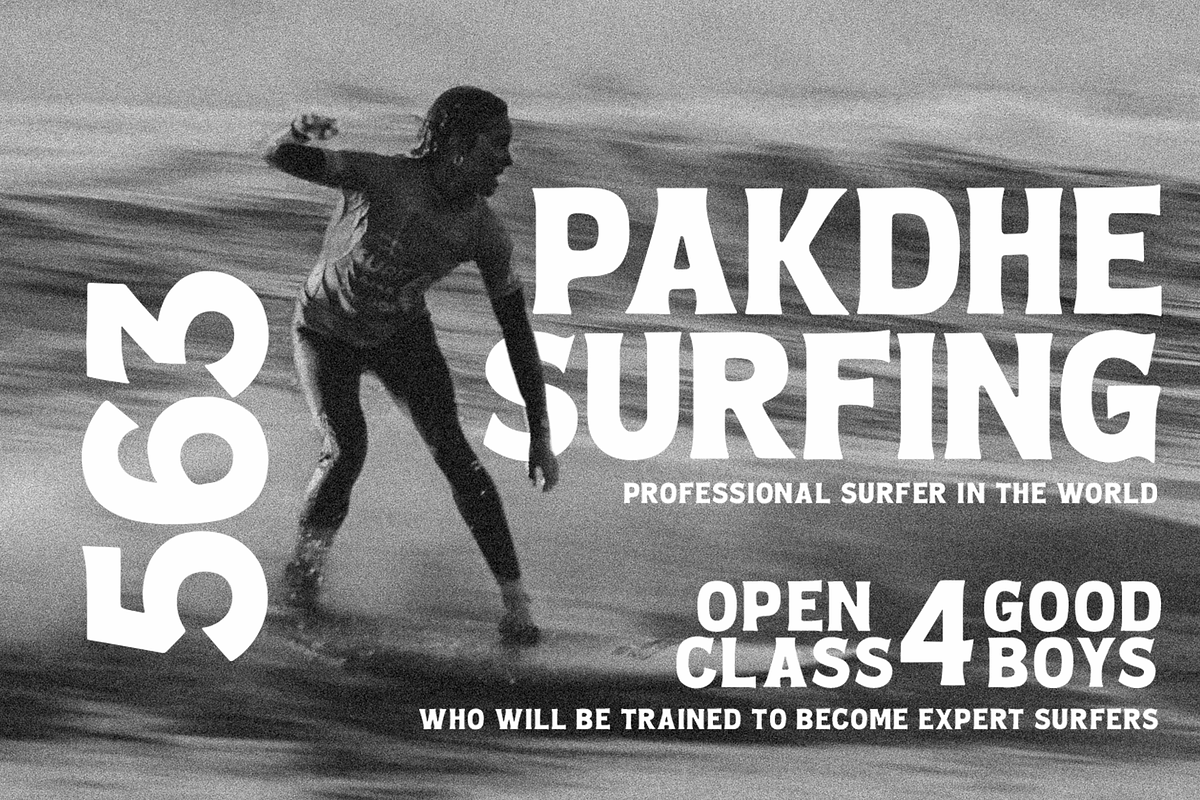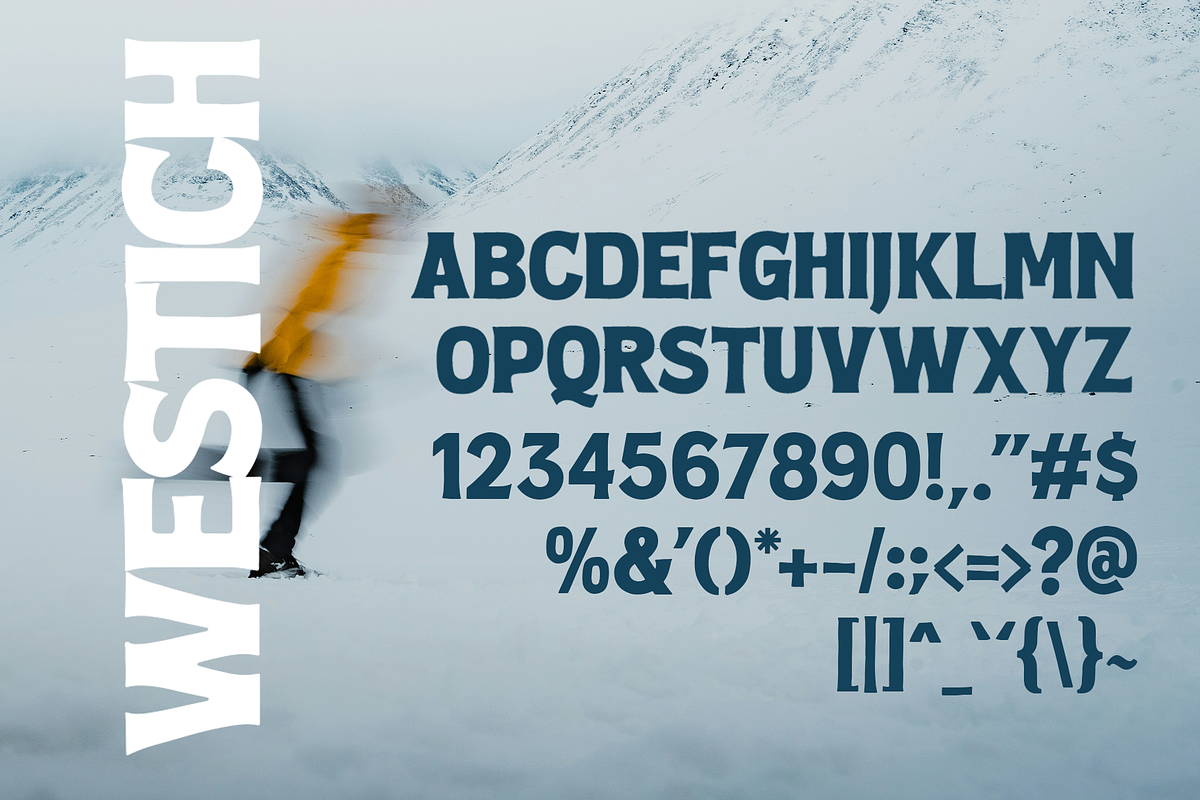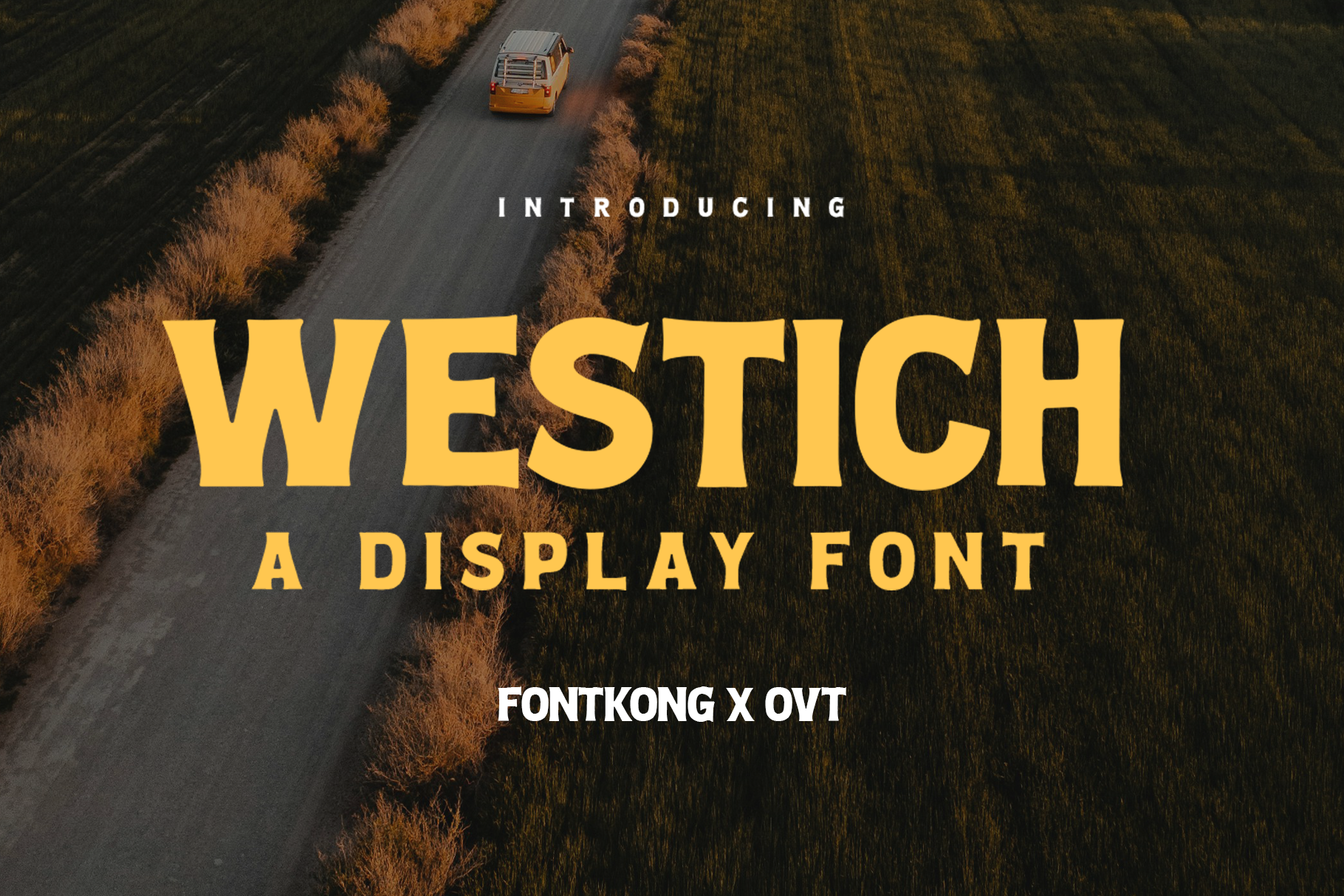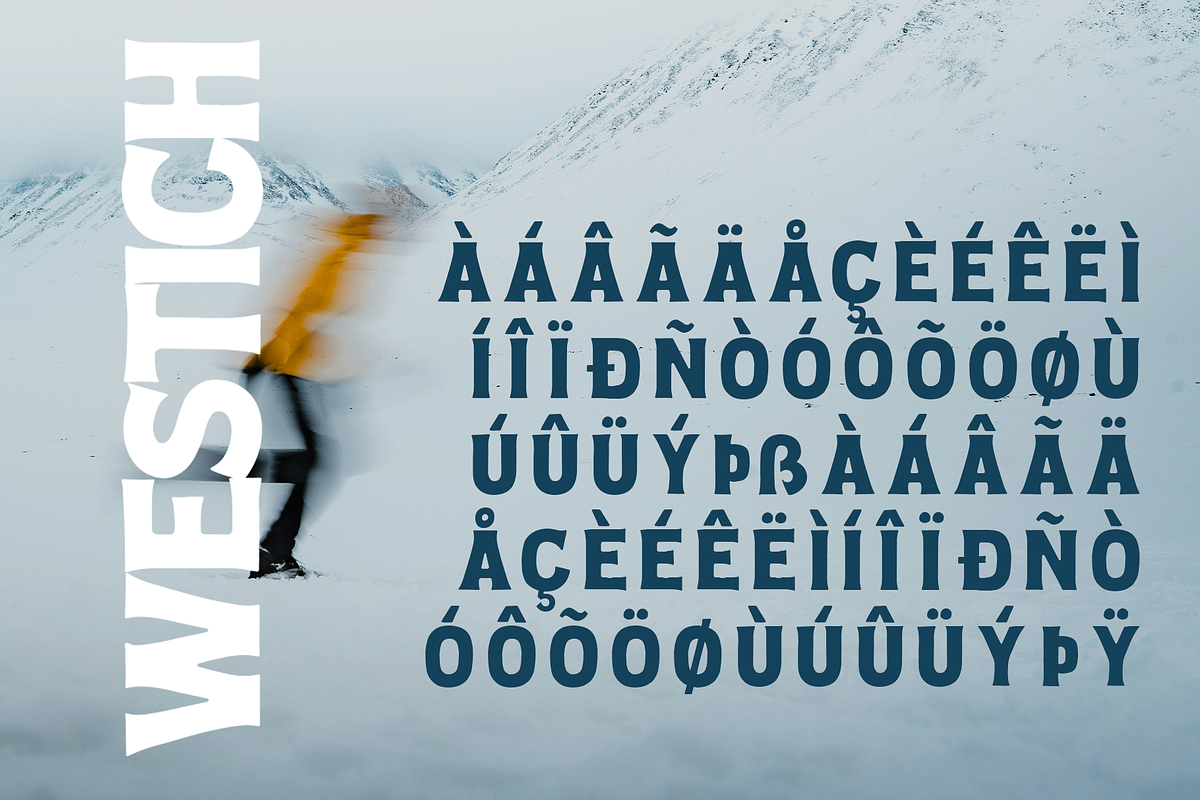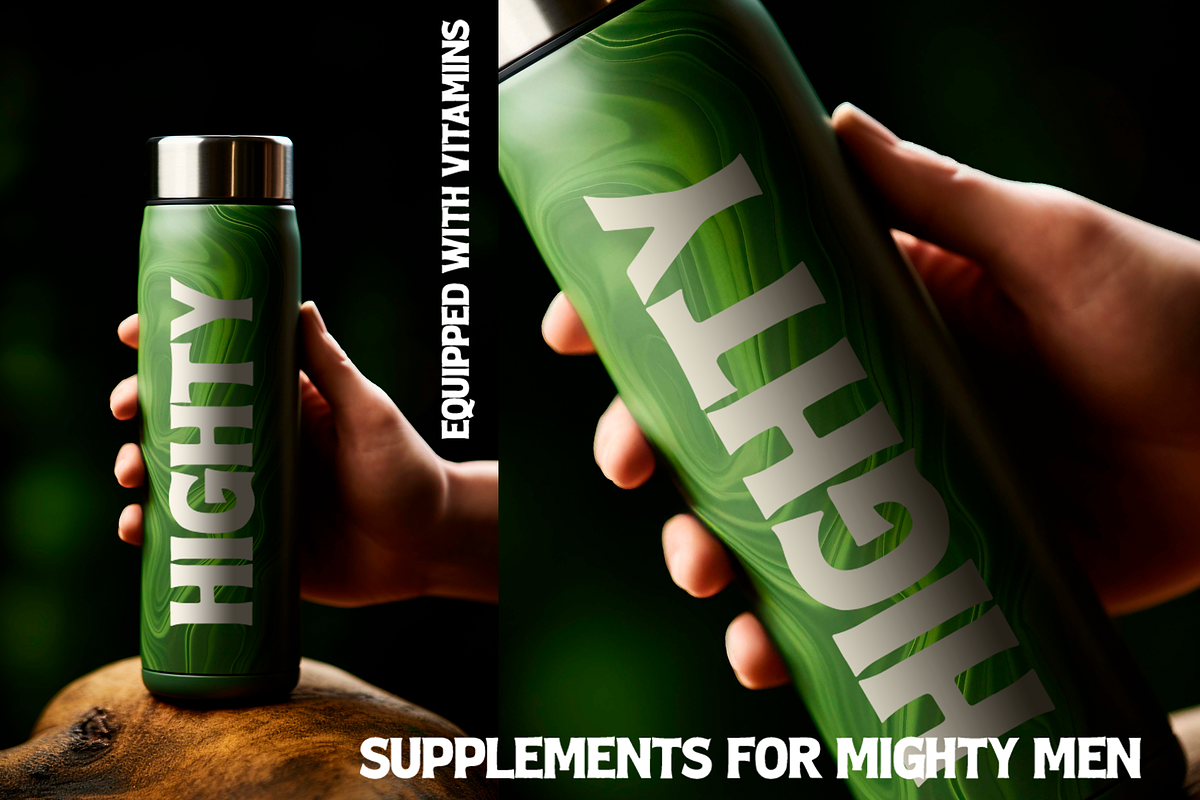
Westich - Bold Display Font
Westich is a bold display font crafted to make a statement. Perfect for posters, branding, and impactful headlines, Westich’s striking design adds a creative edge to any project.